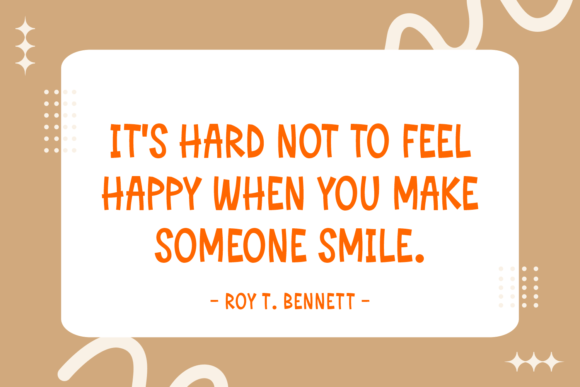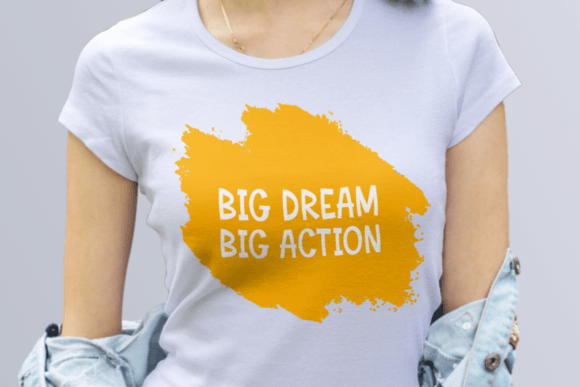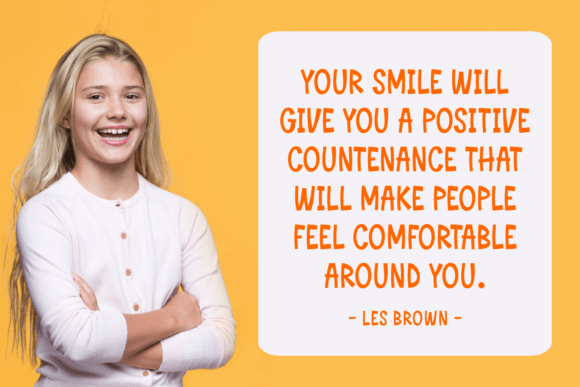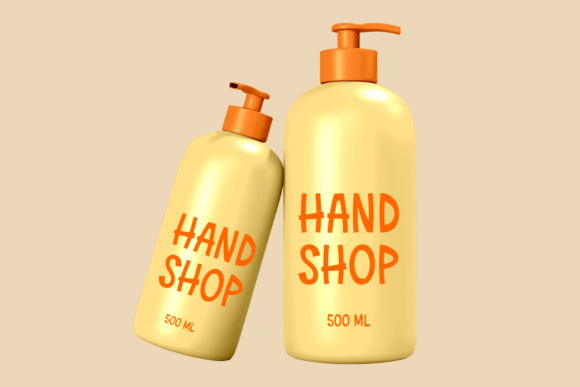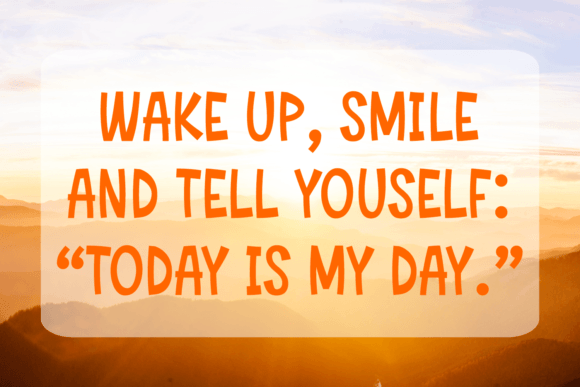
Introduction to Smyle Font
As you sit in front of your computer, staring blankly at a blank canvas, the creative juices start to flow. You’re working on a project that requires the perfect font – one that exudes elegance, sophistication, and a touch of playfulness. And then, it hits you – the Smyle Font. Its clean lines, pleasing aesthetic, and versatility make it the ultimate design resource for any creative project.
The Smyle Font is more than just a font – it’s a personality that can elevate your designs and leave a lasting impression. Whether you’re working on product packaging, labels, or greetings cards, this high-quality font is sure to deliver. With its transparent background and seamless integration with various languages, the Smyle Font is a valuable asset for designers looking to take their projects to the next level. And the best part? It’s available for free download, making it an accessible design resource for creatives of all levels.
Key Features of Smyle Font
- High-quality, professional design perfect for creative projects.
- Unique, modern style ideal for logos, branding, and typography-based designs.
- Includes multiple font weights and styles for added versatility.
Honest Review: Smyle Font
As a designer, I’m always on the lookout for high-quality design resources to elevate my creative projects. Recently, I came across the Smyle Font, and I must say, it’s been a pleasant surprise.
What works well about the Smyle Font is its versatility and playful vibe. ✨ It’s perfect for designing logos, social media graphics, and even packaging. The font is available for free download, which is a definite plus. I appreciate that the designer has made it easily accessible to everyone.
Another great feature is the transparent background, which allows for seamless integration with any design element. This level of detail is often overlooked, but it makes all the difference in a design project.
However, there are some limitations to consider. ⚠️ The font is not as extensive as some other popular font collections, and the character set is relatively small. Additionally, the font may not be suitable for large-scale commercial projects due to licensing restrictions.
Overall, I’m impressed with the Smyle Font, and I think it’s a great addition to any designer’s toolkit. It’s a great resource for smaller projects or personal designs, and its free download makes it an attractive option for those on a budget.
- Playful and versatile design
- Perfect for smaller projects or personal designs
Smyle Font
The Smyle Font is a high-quality design resource that offers a free download. This font is ideal for creative projects, including branding, advertising, and digital media. Its transparent background makes it easy to integrate into any design.
Tips for Getting the Most Out of Smyle Font
- Experiment with different font sizes and styles to achieve the desired effect.
- Combine Smyle Font with other design elements, such as images and shapes, to create a visually appealing design.
- Use Smyle Font in conjunction with other design resources, such as graphics and templates, to create a cohesive look.
Smyle Font is ideal for a variety of creative projects, including:
- Branding and advertising
- Digital media, such as websites and social media
- Print media, such as business cards and brochures
Alternatives to Smyle Font
Pacifico is a high-quality script font perfect for creative projects that require a touch of elegance. It’s ideal for use in headings, titles, and quotes. This font is free to download and can be used for both personal and commercial projects.
Compared to Smyle Font, Pacifico has a more refined and sophisticated look, making it suitable for a wider range of design applications.